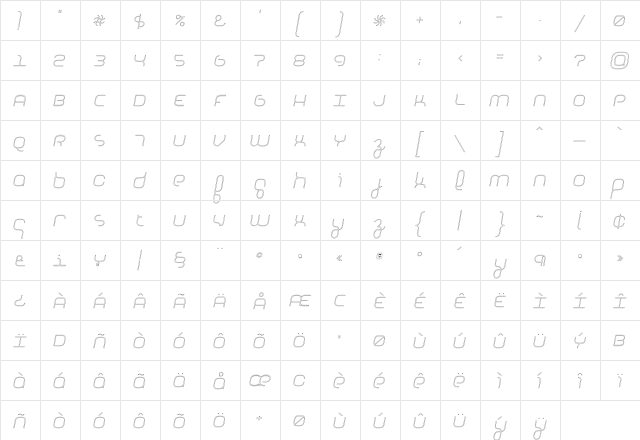
Basis ObliqueOutline
Design Context for Basis Typeface
Basis brings ornamental detail and strong personality to headlines and identities, where visual impact matters more than quiet functionality. Its italic angle brings a sense of urgency and motion to the letterforms.
Font Pairing: Pair with a clean neutral sans-serif for body copy to let Basis's character lead without overwhelming the composition.
Pro Tip: Use Basis exclusively at display sizes — it was designed to be seen, not read at length. Let a neutral companion handle body copy.